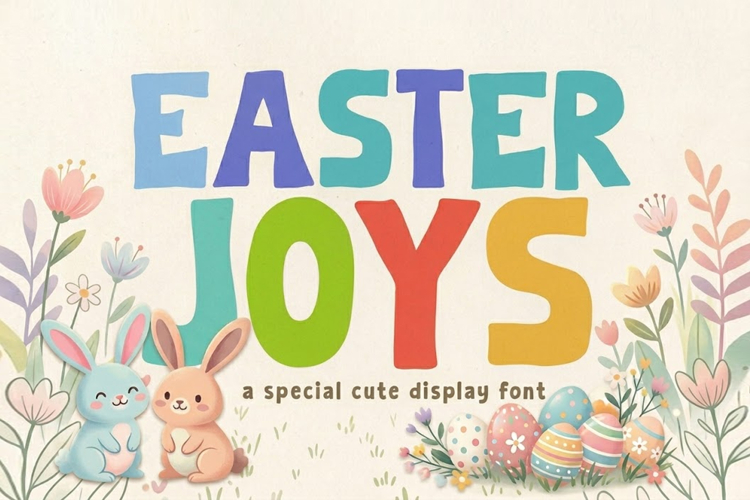
Easter Joys is more than just a seasonal font; it’s a versatile powerhouse for any playful design! Featuring full multilingual support and a complete set of symbols, this font is ideal for children's books, quirky branding, and DIY craft projects. Its bold personality ensures your message stands out with a warm, approachable vibe.